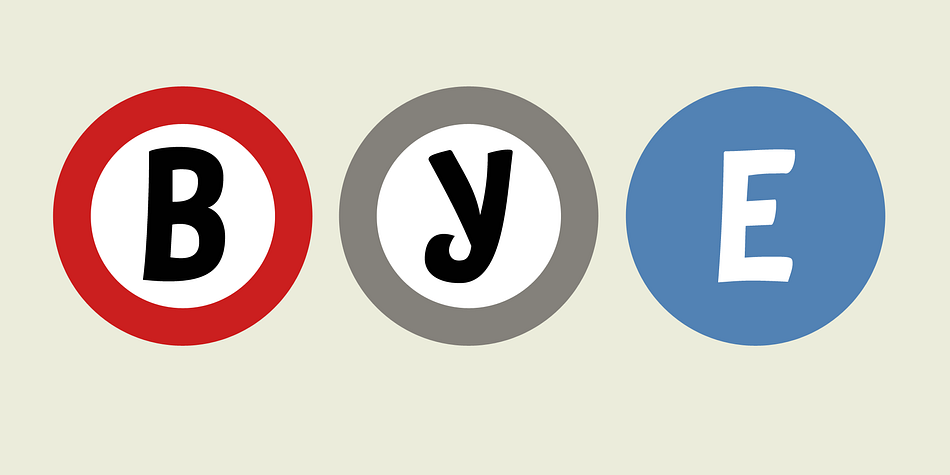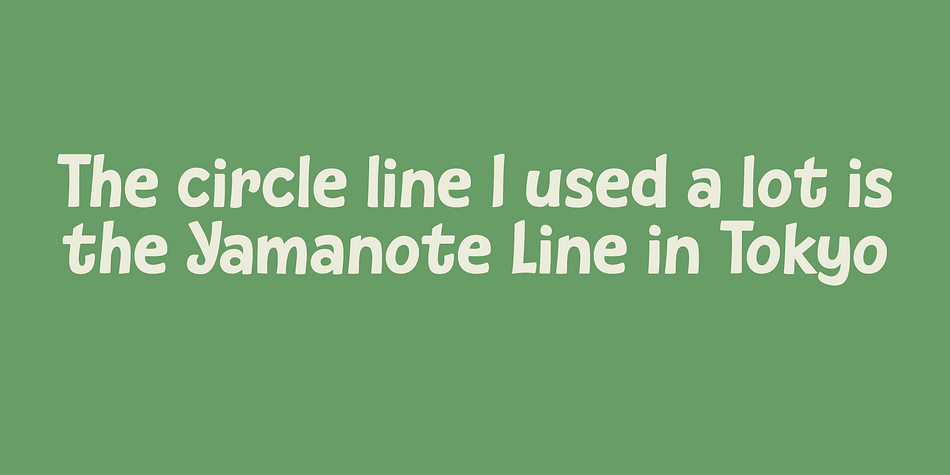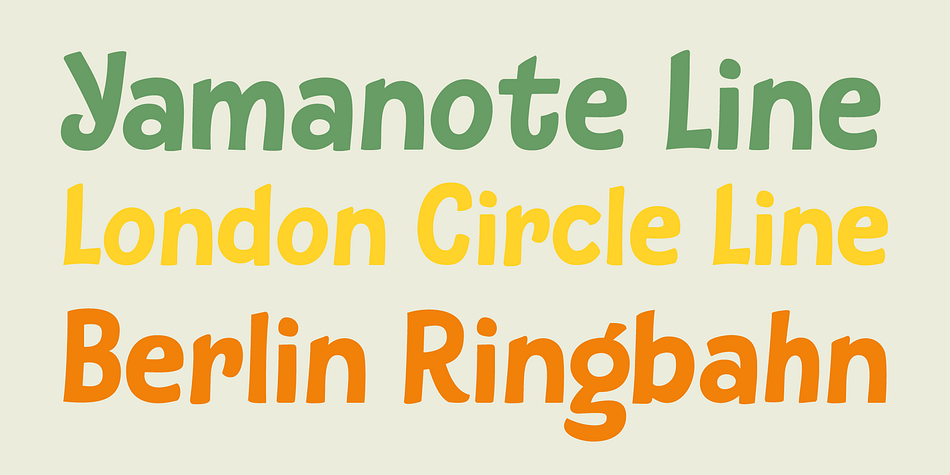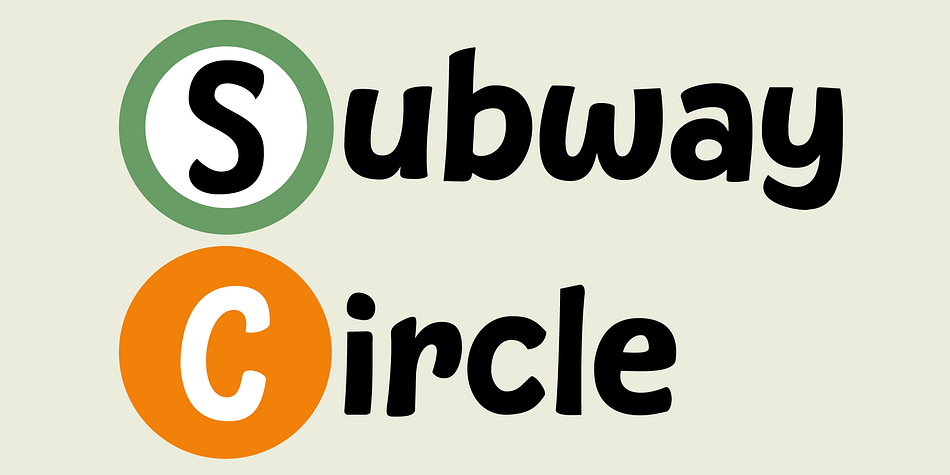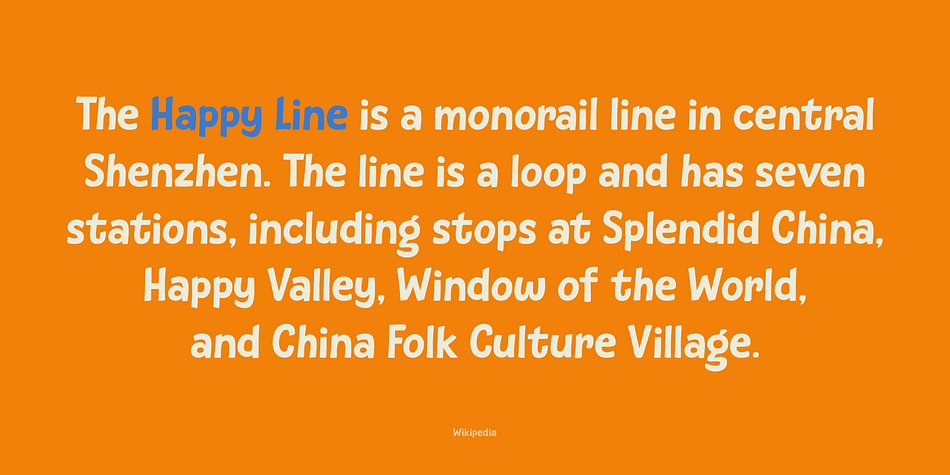
Subway Circle
Designed by David Kerkhoff, Subway Circle is a hand display font family. This typeface has two styles and was published by Hanoded.
My eldest son Sam always wanted to visit Japan and he has been saving up for a ticket for years now. We should have traveled there this year, but due to the pandemic, that was impossible. We’re now trying to go next year.
Sam and I did make some kind of itinerary and I told him how we were going to get around, as I have been to Japan many times. I told him about the Shinkansen trains, the cute Tram in Nagasaki and the immense subway system in Tokyo. One of the lines in Tokyo is the so-called Yamanote Circle Line, which I have used on numerous occasions.
A new font name was born and it stuck to this particular font!
Subway Circle is a 100% handmade font. It is rounded, slightly slanted and comes with a sunny disposition. I am sure that, when you use it, you will find your 生きがい… ;-)